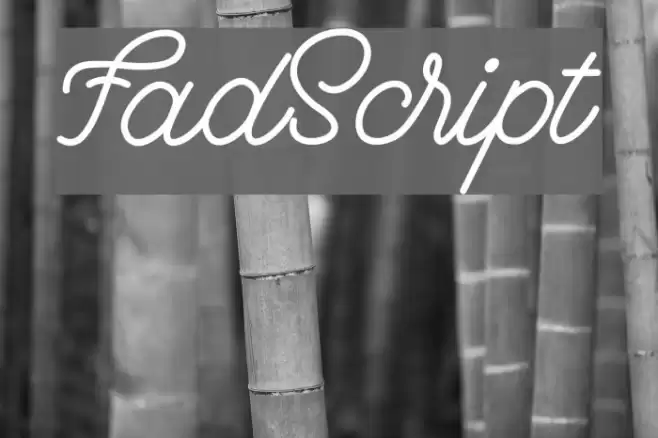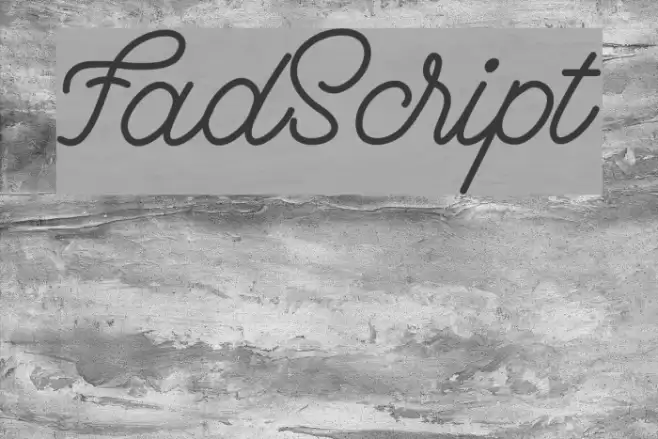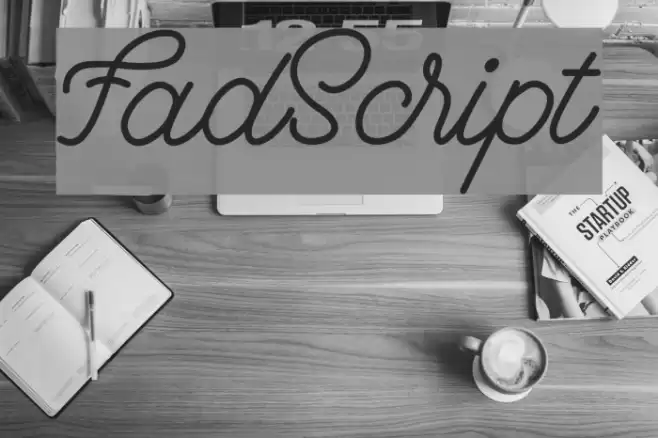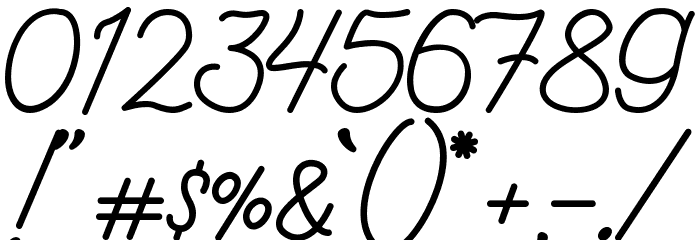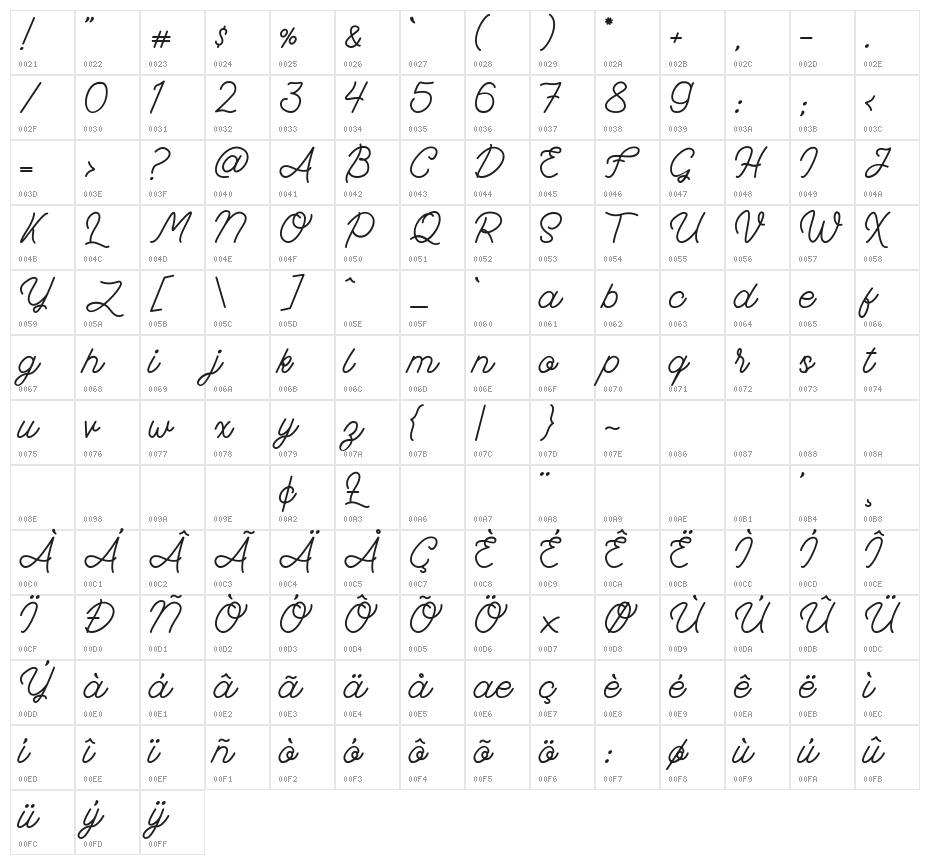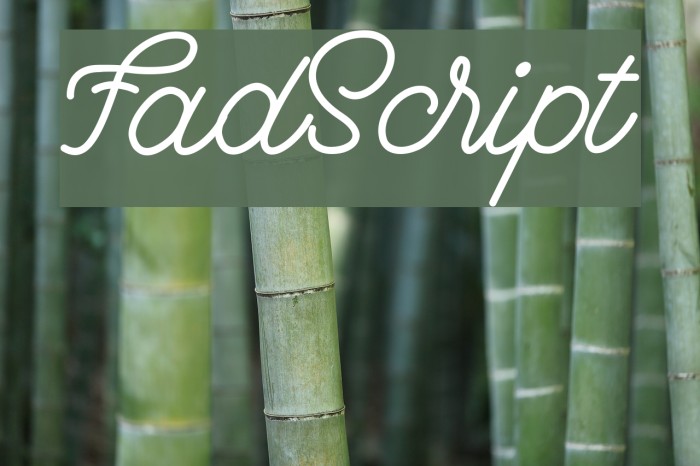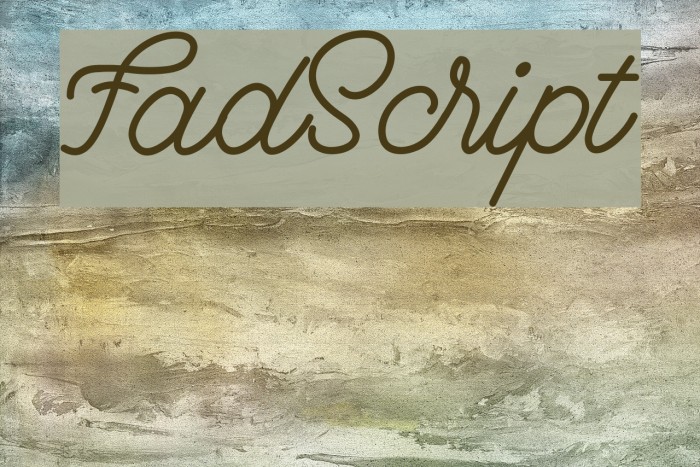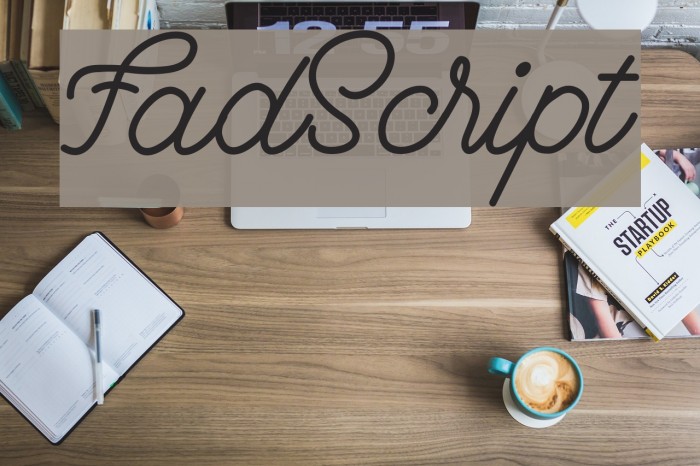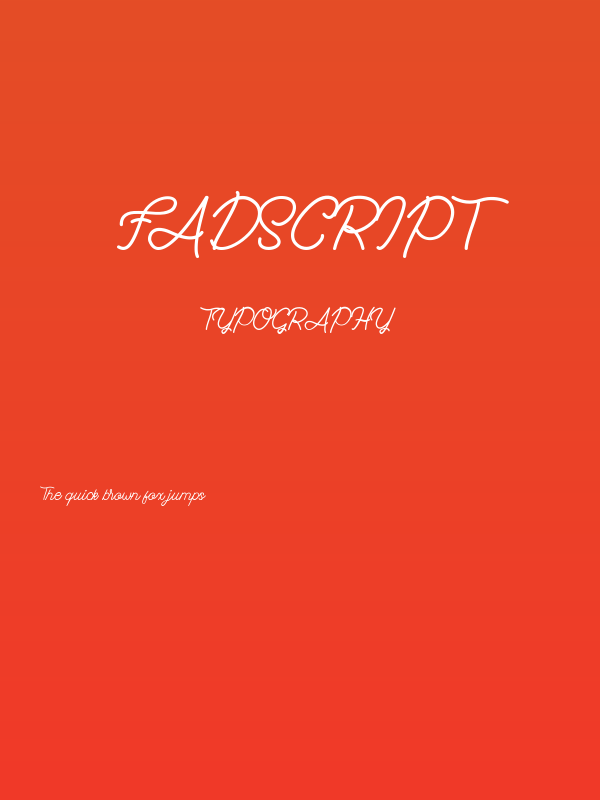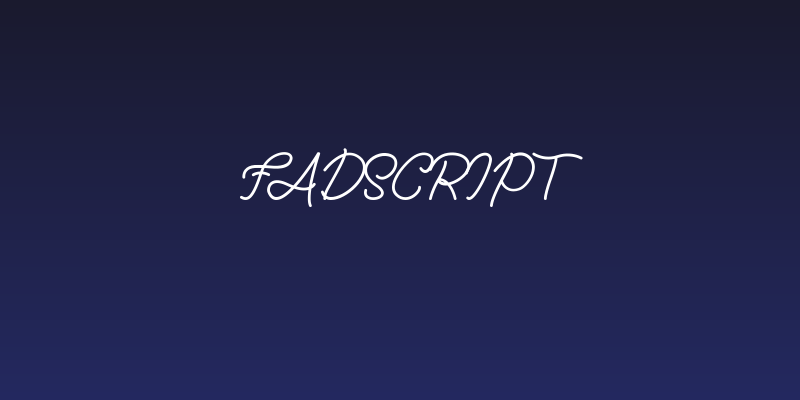
FadScript Font
FadScript Description
This font features a flowing, cursive style that mimics elegant handwriting. The characters are connected in a smooth, continuous manner, giving it a natural and fluid appearance. The uppercase letters are slightly more ornate, with subtle flourishes that add a touch of sophistication. The lowercase letters maintain a consistent height, ensuring readability while preserving the script's artistic flair. The numerals and special characters are designed to match the overall aesthetic, with rounded edges and a cohesive style that complements the alphabet. This font is ideal for projects that require a personal, handwritten touch, such as invitations, greeting cards, or branding materials.
A flowing, cursive script font with elegant, connected characters from Uncategorized fonts.
- Proposed Projects: Ideal for wedding invitations, greeting cards, personal branding, and artistic projects.
- Overall Style: Elegant, Handwritten
- Use Case: Headlines, Invitations, Artistic projects